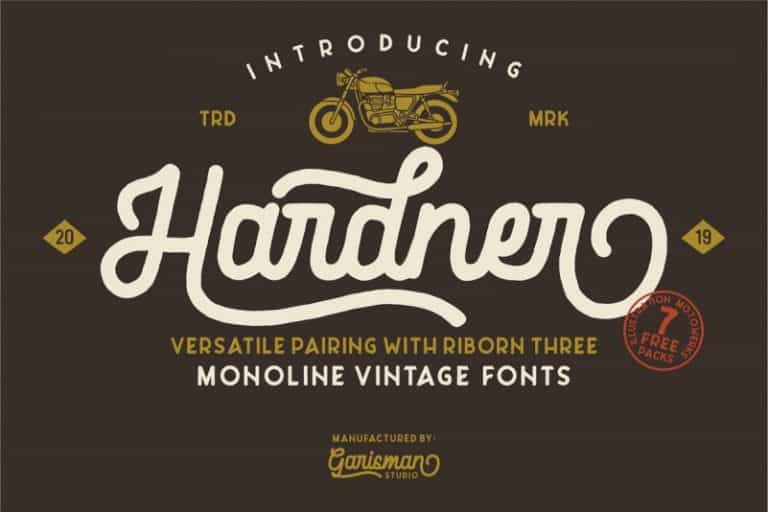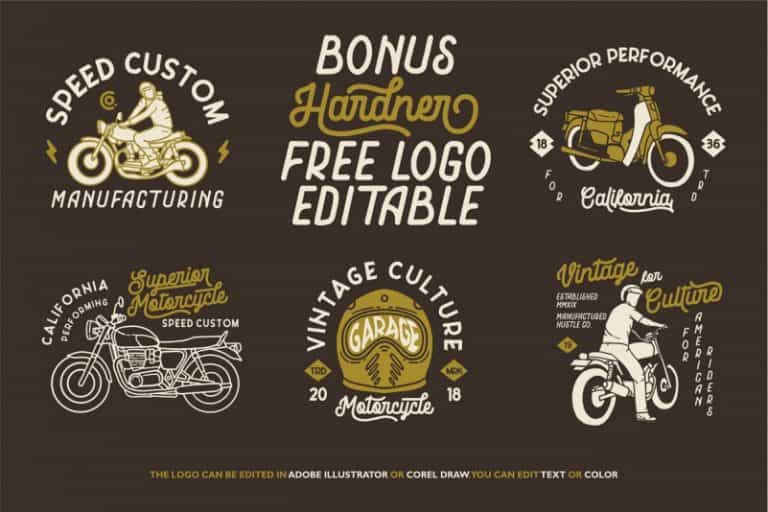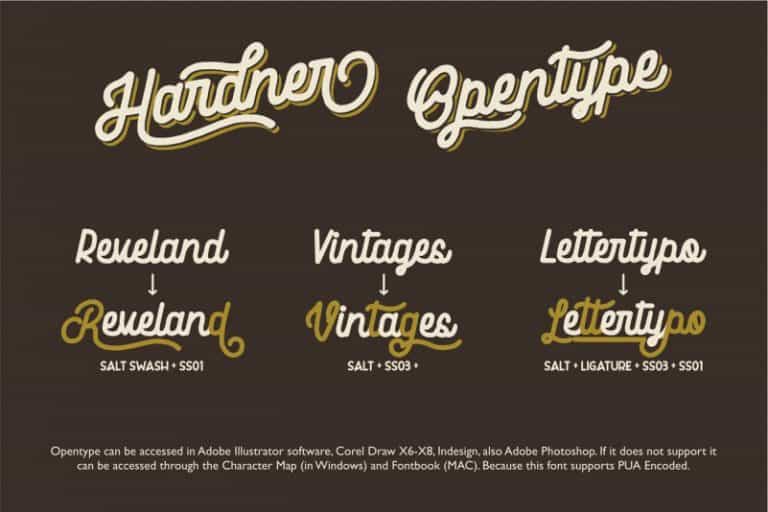
Introducing Hardner Font. Hardner Vintage Font created from the style of vintage motorcycle. Also this is a handmade modern vintage monoline display typeface, it comes with different opentype style characters and paired font RIBORN Three (Included. Adaptable to many projects you needed, such as a logo type, handlettering, branding, label,t- shirt design,,poster and so on.